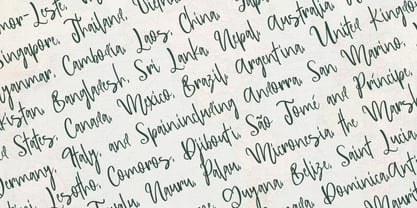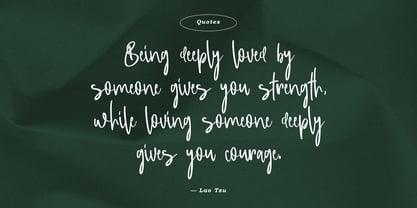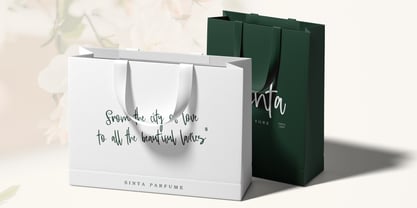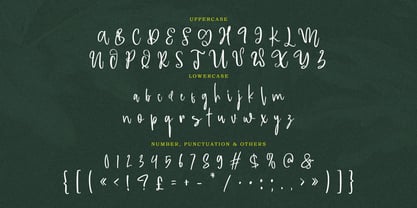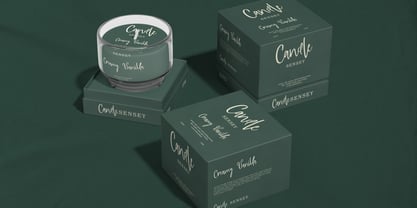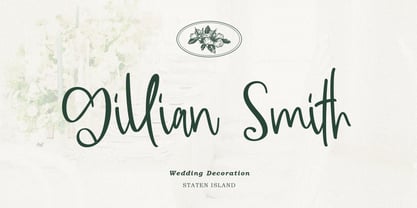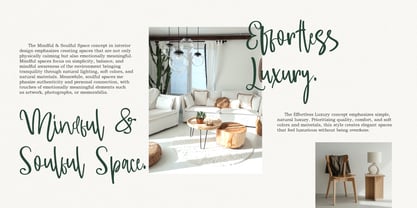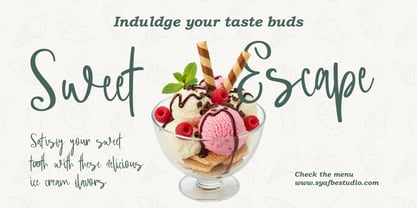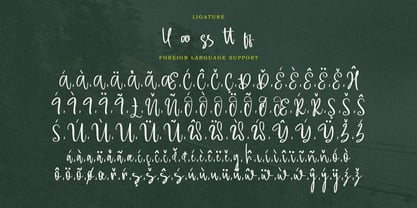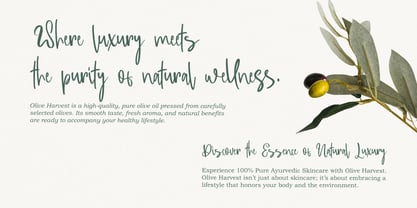
Massipak
The Massipak Font Family was designed by Syafwan Mus and published by Syafbe. Massipak contains 1 styles. More about this family
Font MassipakThe Massipak font was born from a philosophy of artistic simplicity—each curve represents a harmony between boldness and softness. Designed with meticulous care, each stroke reflects a balance between aesthetics and technical precision. With a smooth letter structure without excessive nodes, the Massipak font maintains its sharpness and beauty even when printed at large sizes. It's more than just a font, but a work of art that brings elegance to every visual medium. This font is also optimized for stunning visuals on both digital and print media. With its graceful handwriting style and dynamic flow, the Massipak font conveys a professional yet warm and personal feel. Suitable for logos, product packaging, invitations, and even social media content, the Massipak font is ready to strengthen your brand's visual character across every platform.